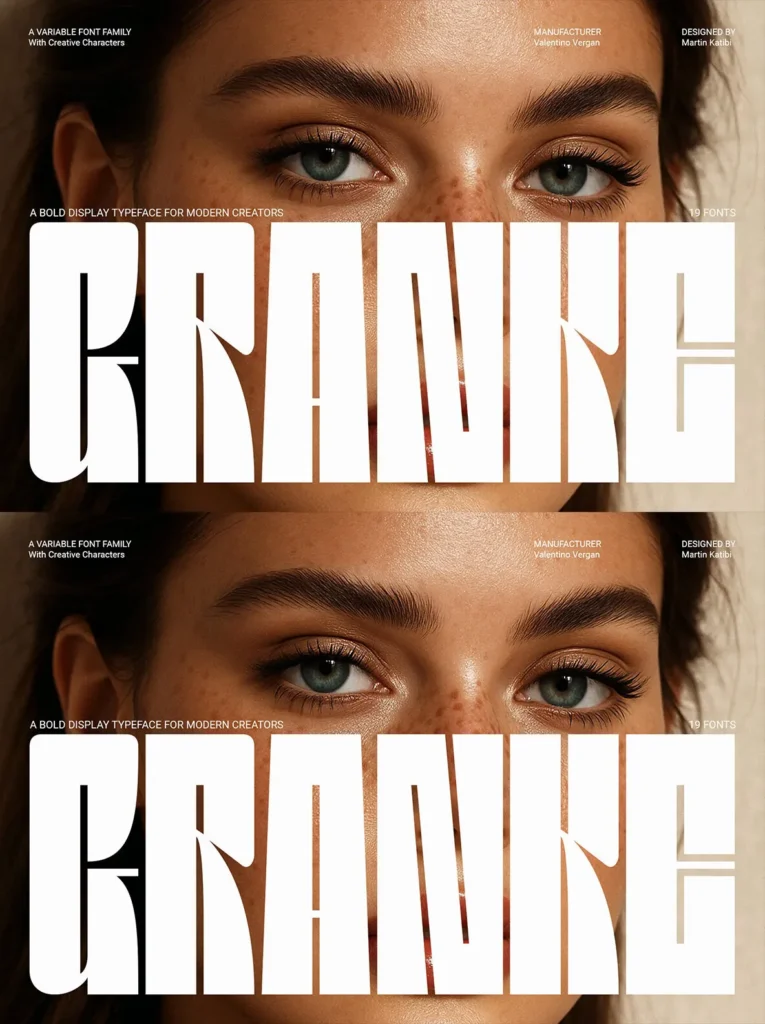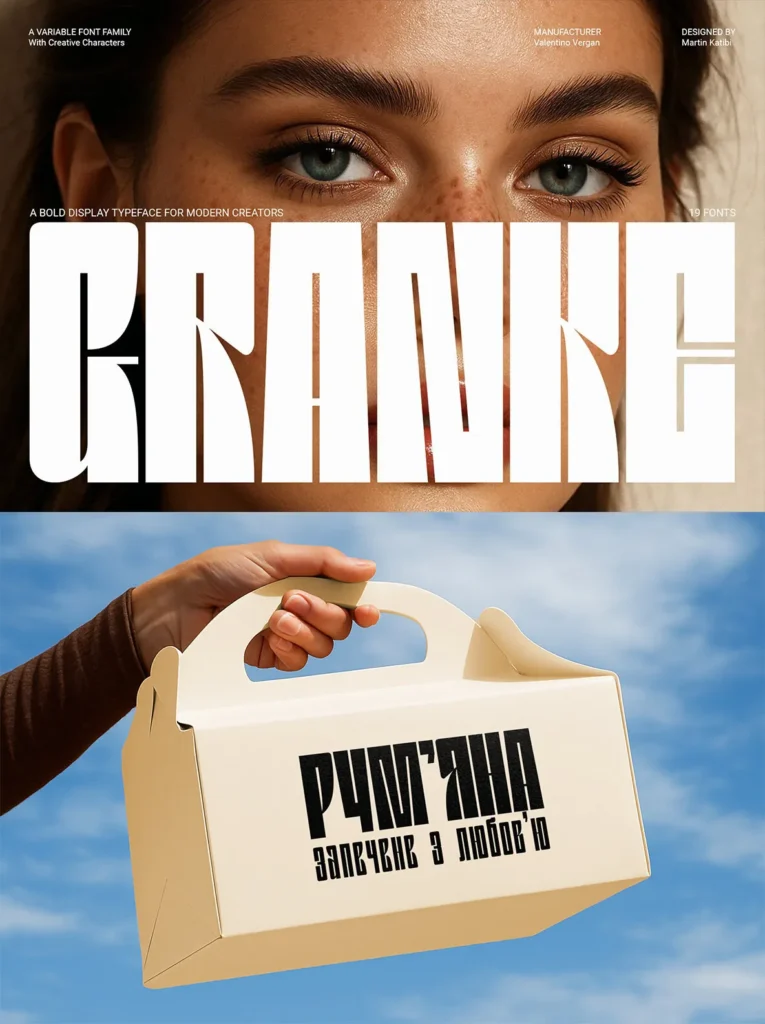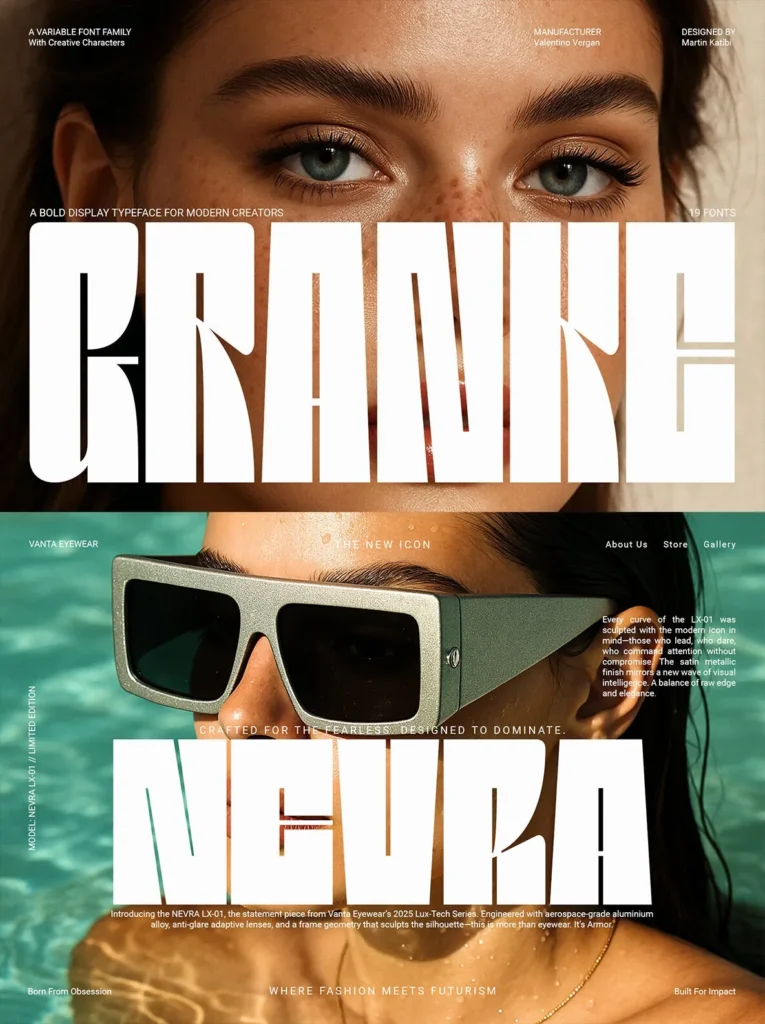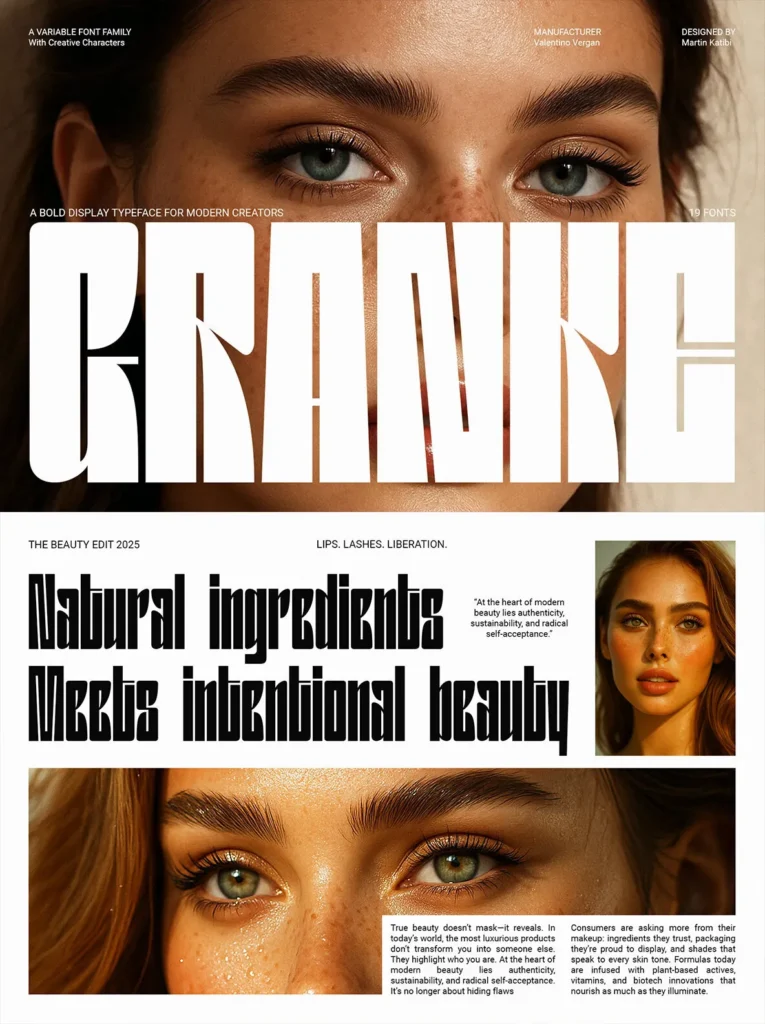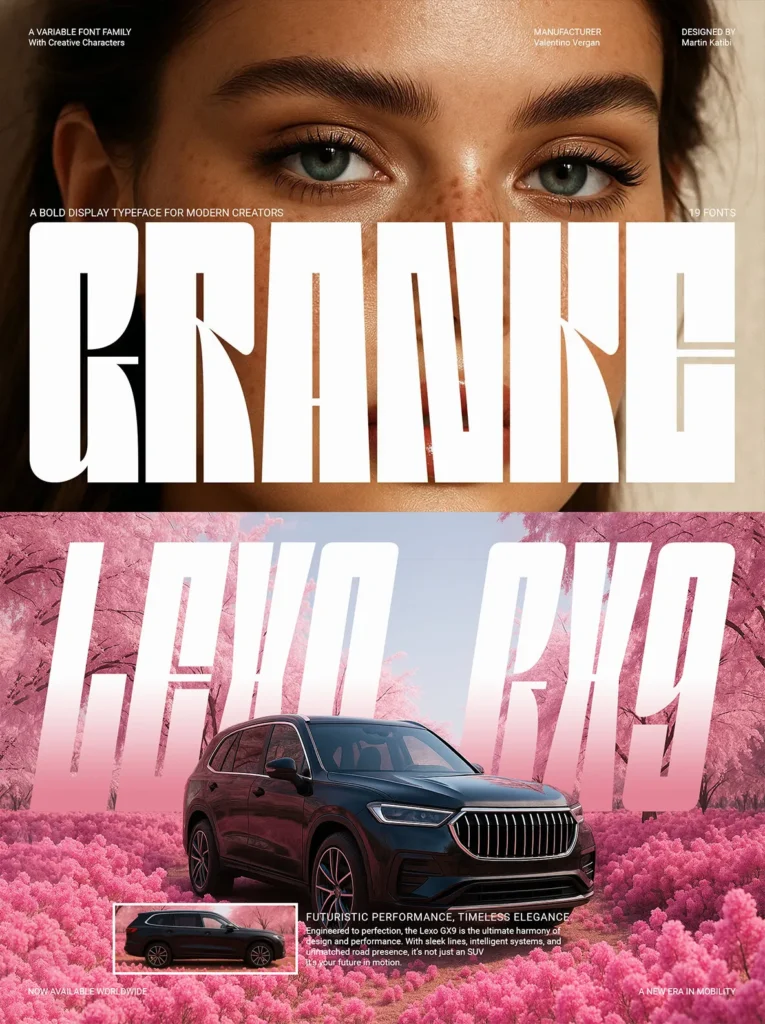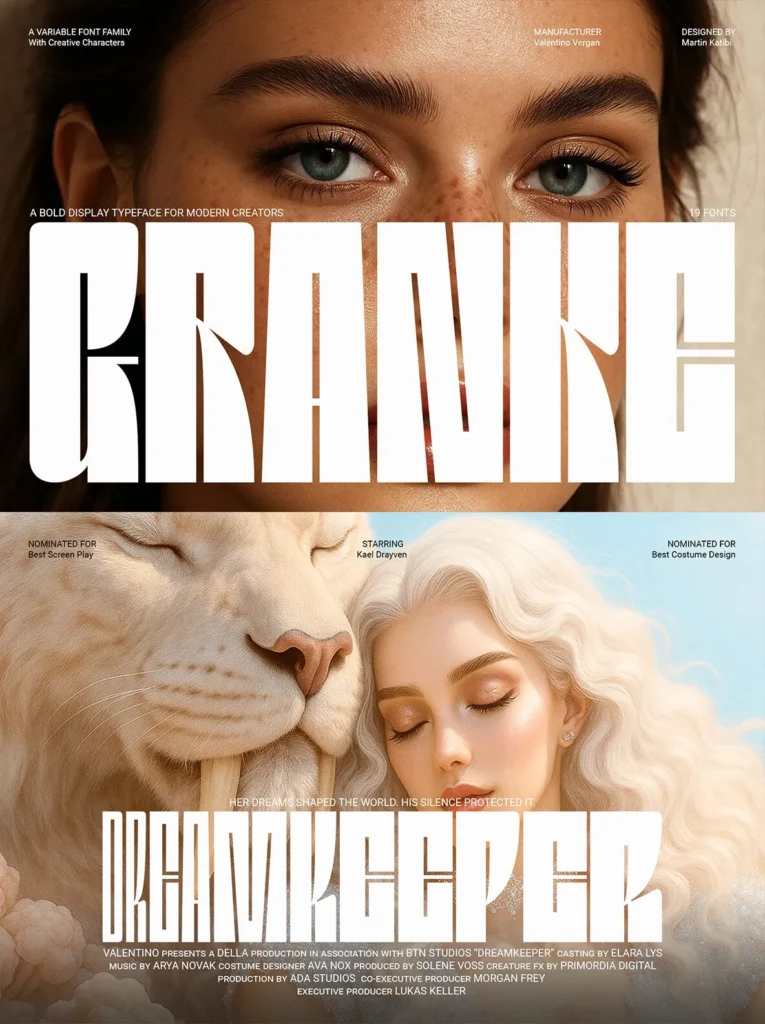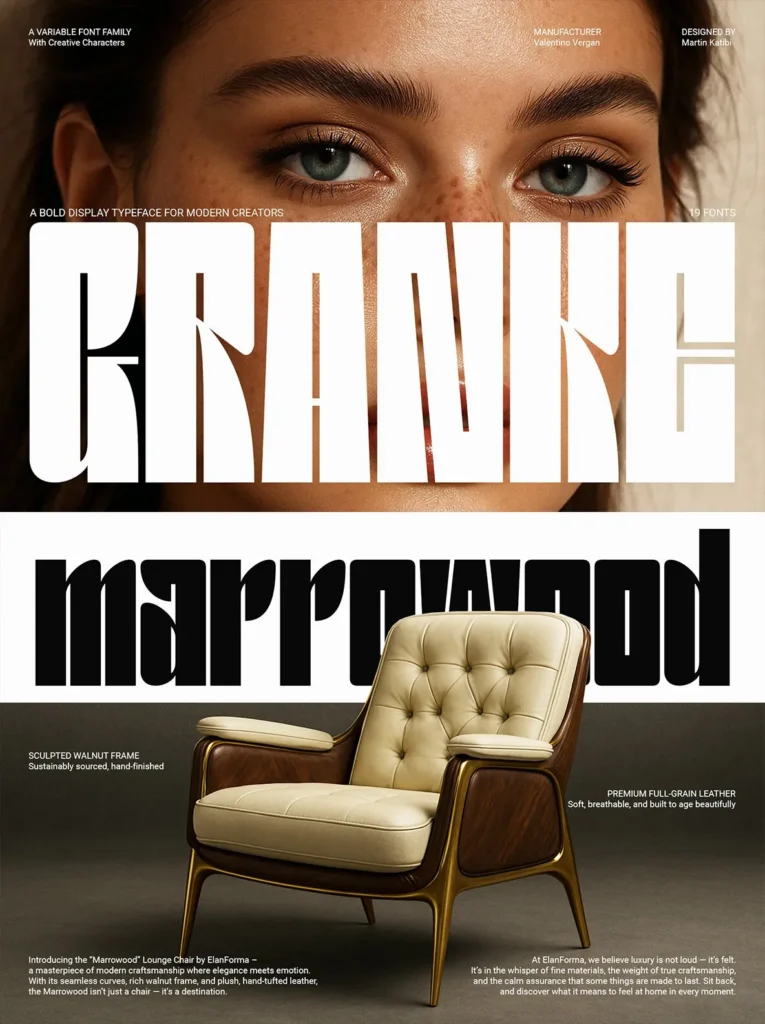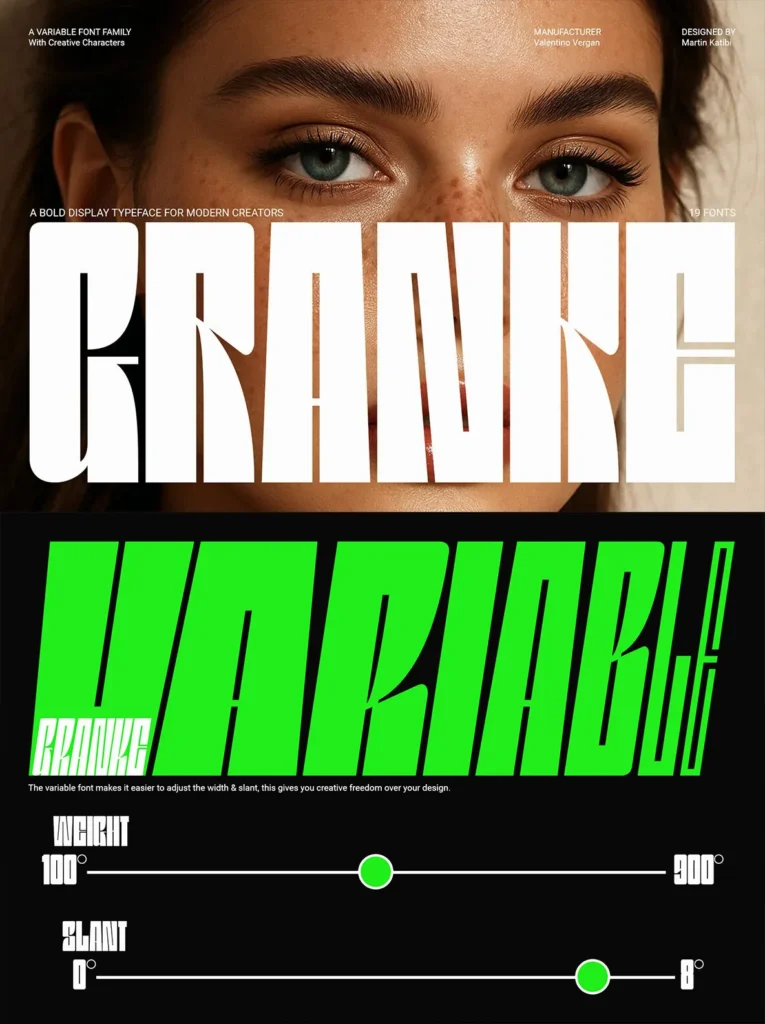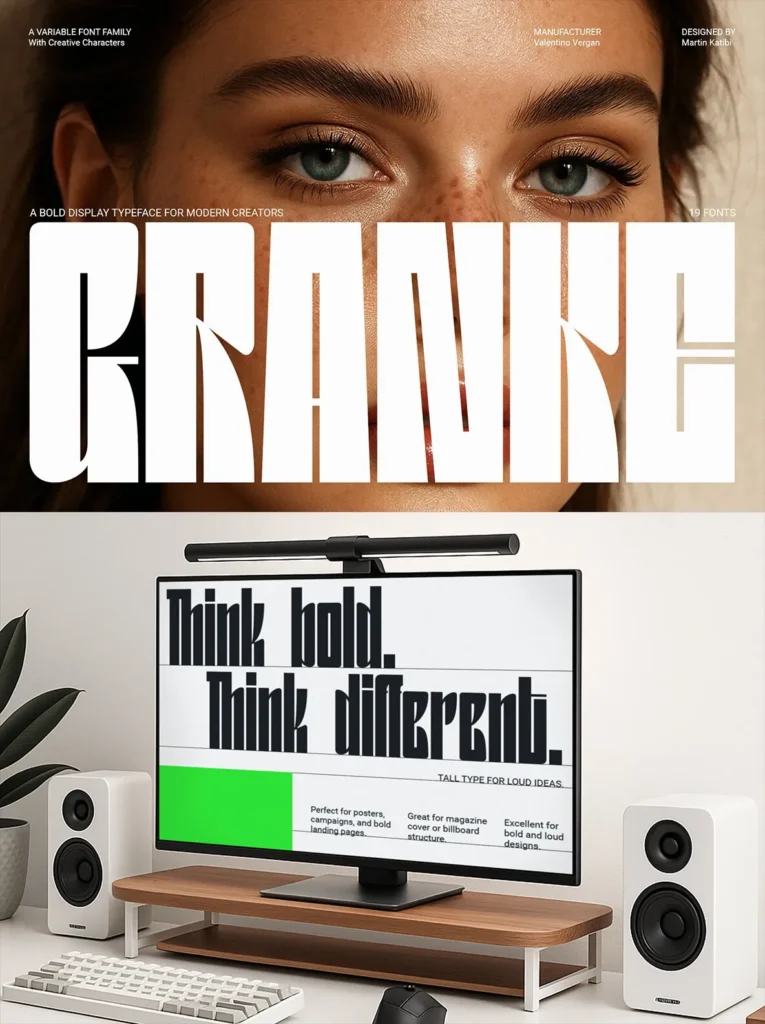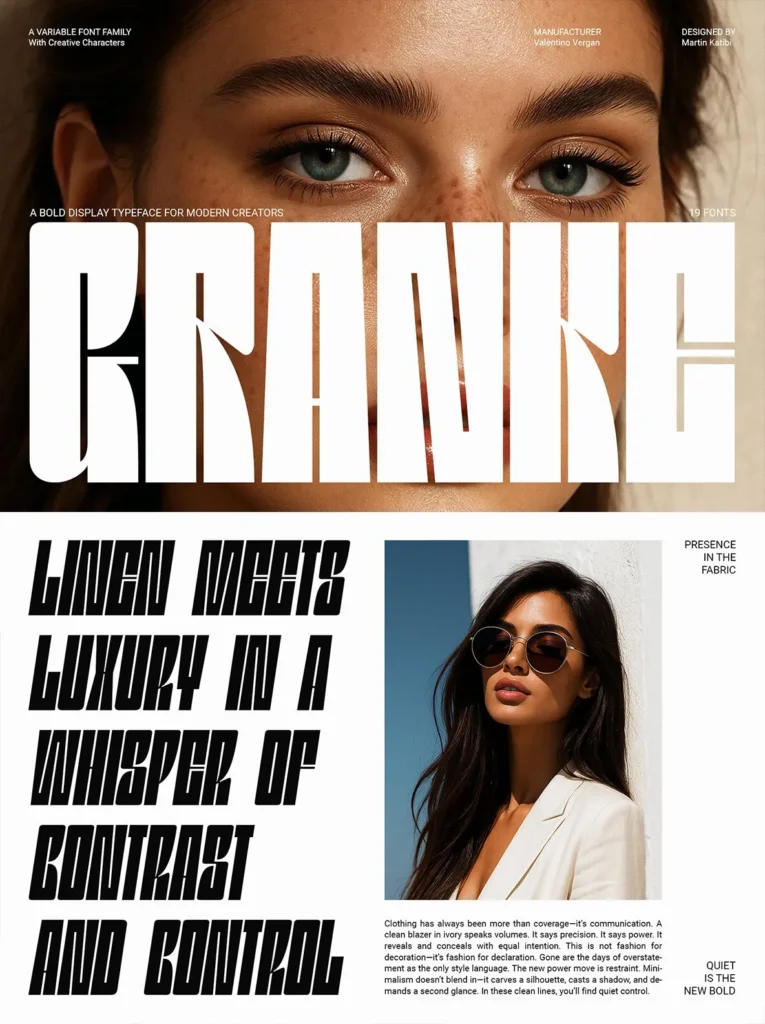
Granke: A Bold Display Font for Creative Professionals
Granke radiates an assured presence that transforms visual narratives with power and precision. Its comprehensive range includes nine weights, matching obliques, true small caps, extended Latin, and Cyrillic support. Perfect for the professional who demands both flexibility and artistic flair.
Optimized for diverse applications such as branding, editorial, packaging, web, and advertising design, Granke captures attention with its striking forms, distinctive alternates, and intelligent ligatures. This font is tailor-made for designers crafting striking identities, dynamic campaigns, and contemporary layouts.
Granke is Ideal For
Branding and Identity Design
Editorial and Magazine Typography
Packaging and Product Design
Advertising Campaigns
Digital and Web Typography
UI/UX Layouts and Headline Systems